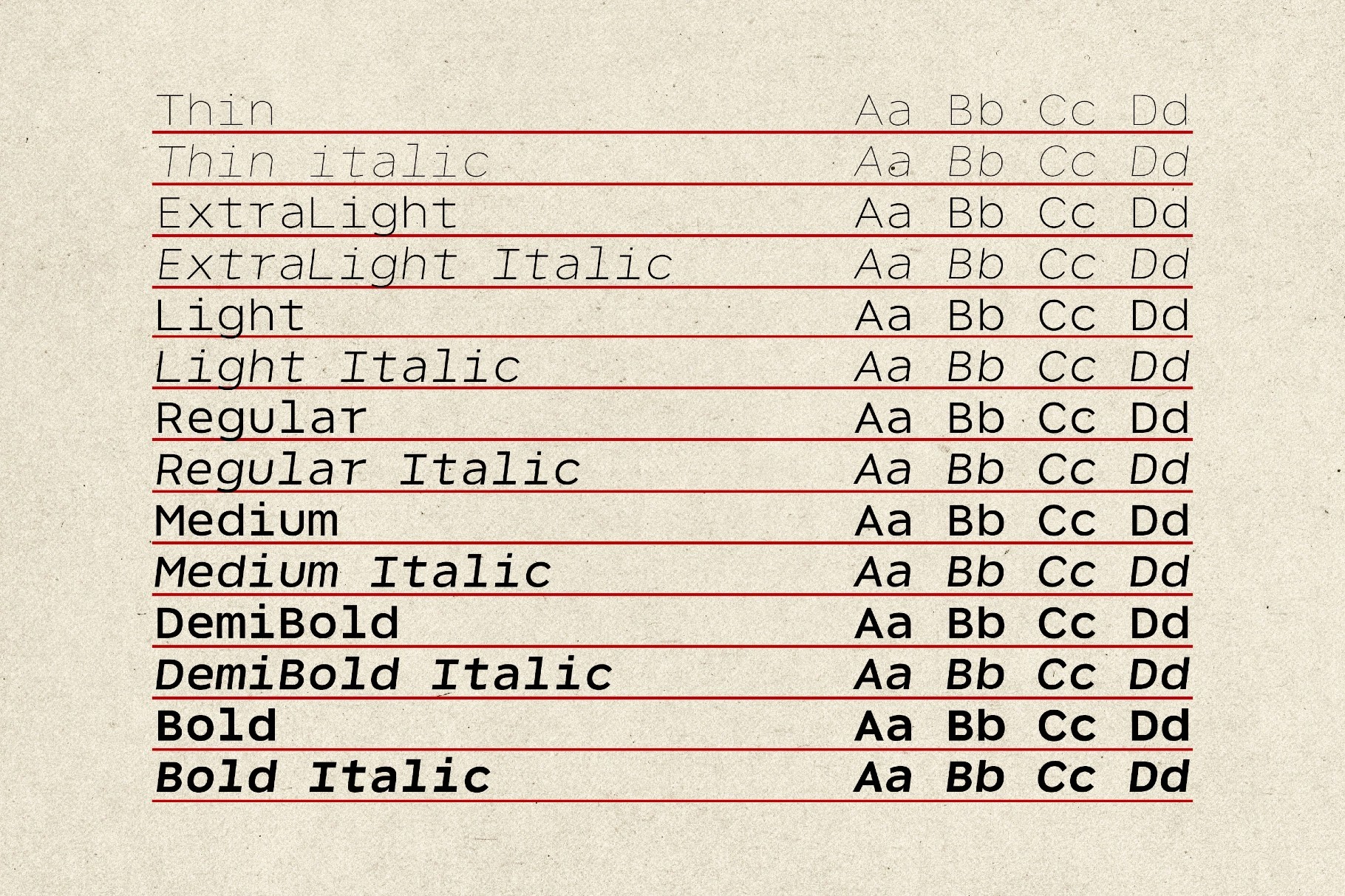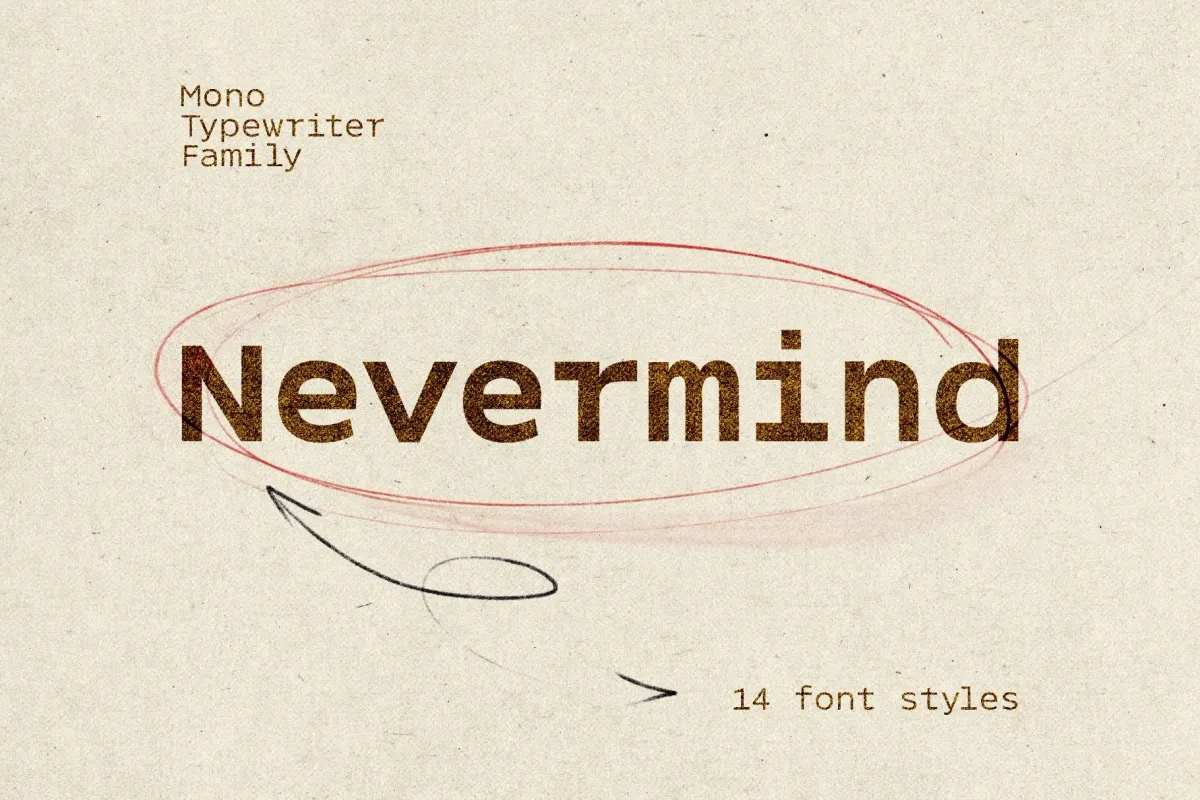
Nevermind Mono Typewriter Family
Nevermind Mono is a soft-edged sans with geometric structure and humanist curves. Open counters, rounded terminals, and a measured rhythm build up its tool-like presence suited for interfaces and dense text blocks.
It's ideal for UI copy, product dashboards, note-taking apps, and documentation that lives on-screen all day. The typeface works well in technical reports, diagrams, datasheets, identity systems for software tools, developer conferences, productivity products, and pitch decks.
Included: uppercase and lowercase letters, numbers, punctuation and symbols, extra symbols plus multilingual support, international characters, and mathematical symbols and metrics. Fourteen styles are included — Bold, DemiBold, Medium, Regular, Light, ExtraLight, and Thin with matched Italic.